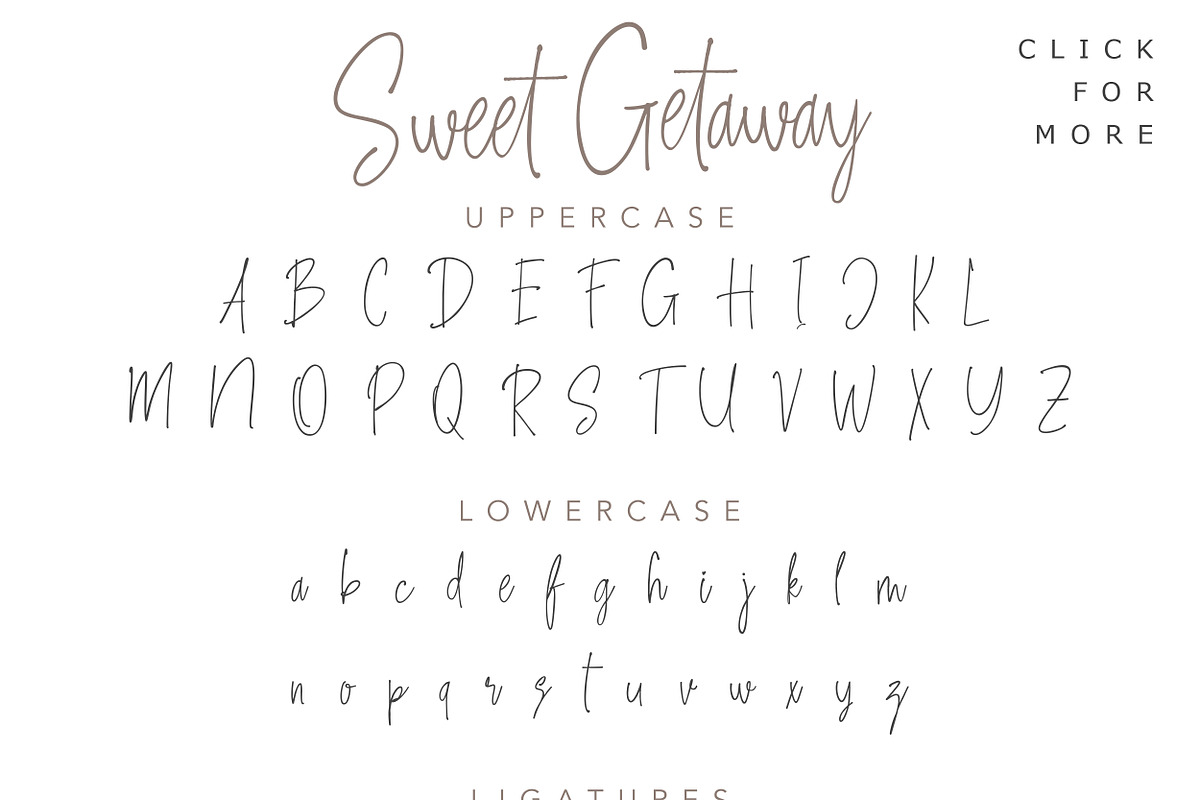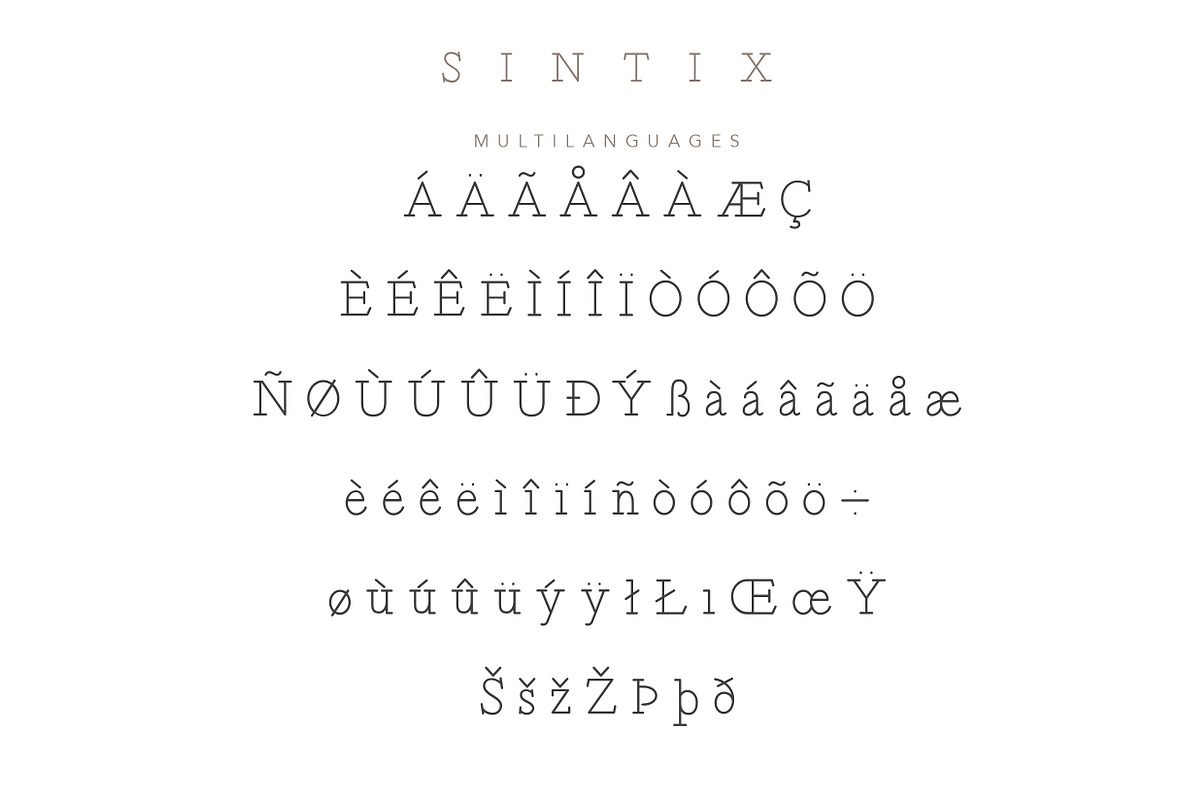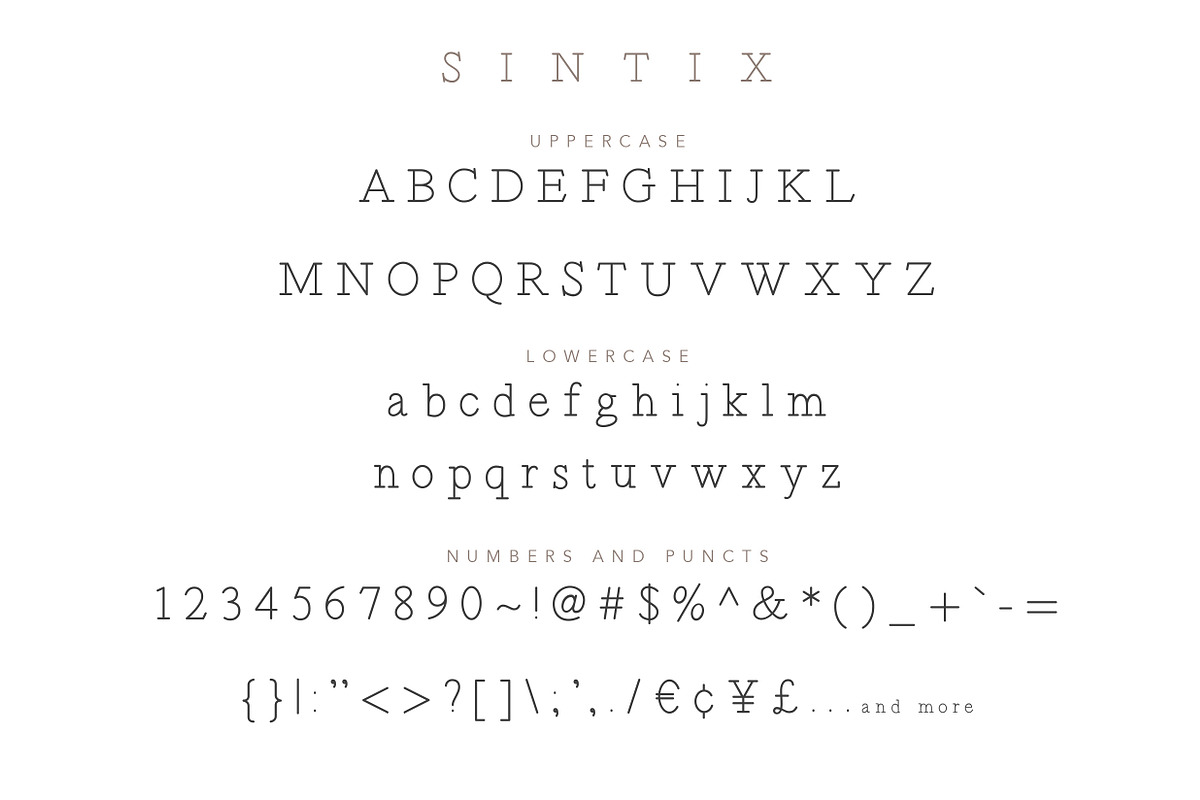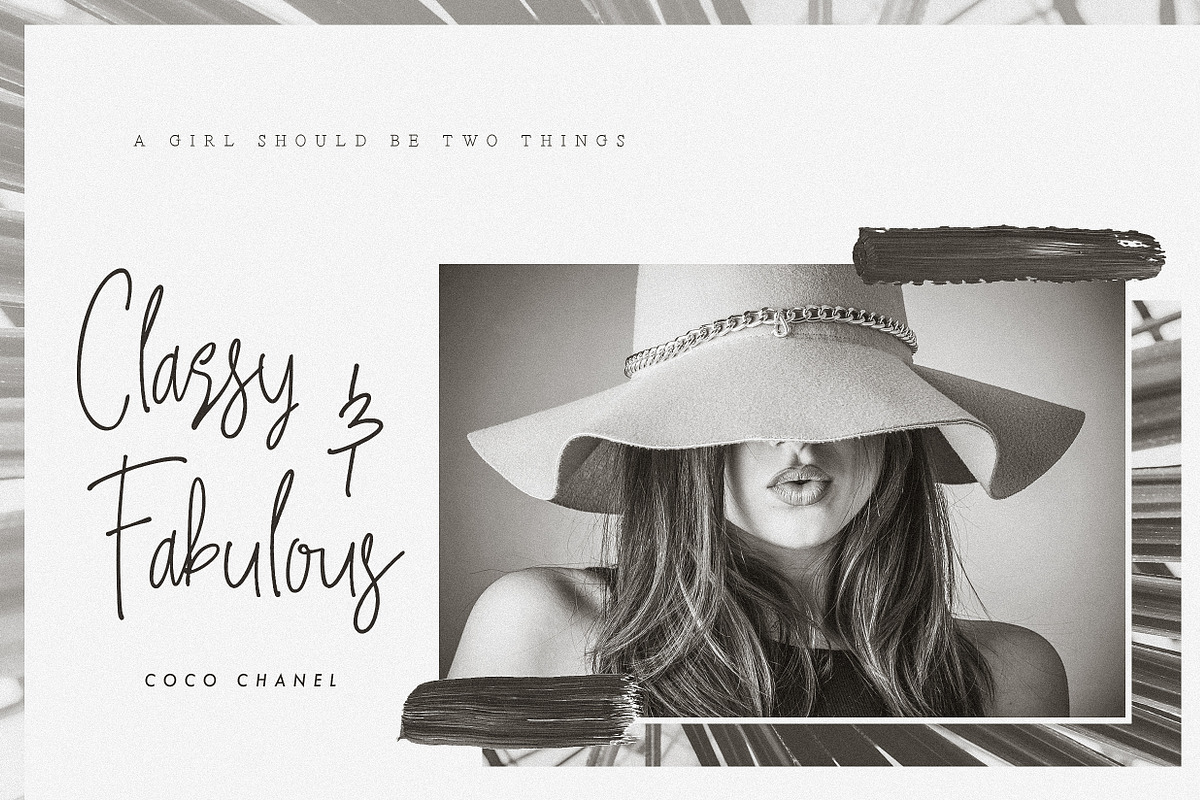
Sweet Getaway - Casual Handwritten
Sweet Getaway, a hand written font with the fast stroke and ballpoint feels. Contemporary script style that hit the trends nowadays. It would be a perfect mate for branding, logo, fashion stuff, cosmetic, apparel, journal, lookbook, greeting cards, a standout statement, headline, magazine. So versatile, right?
Included Uppercase, Lowercase, Numbers & Punctuations, Multilanguage Support, and a bunch of ligatures to seamlessly get the handwritten feels. Check out the preview for more details.
- Sintix font. Here's one of our upcoming next release, and just because you're precious, we give you this special treat with including this font on it, to be the perfect pair for Sweet Getaway font.